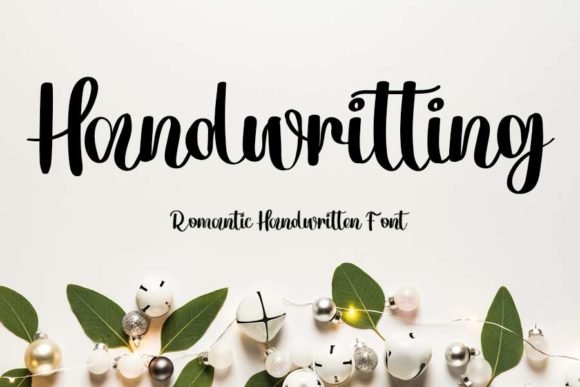
Discover the Timeless Charm of Handwritting Font
As a designer, you’ve probably experienced that moment when a single font can elevate an entire project from bland to grand. It’s like stumbling upon a hidden gem in a crowded market – you can’t help but feel a rush of excitement and inspiration. For me, that moment came when I discovered the Handwritting Font, a chic and round lettered handwritten font that has become an essential part of my design toolkit.
The Handwritting Font is more than just a font – it’s a way to add a touch of personality and whimsy to your designs. Its natural and unique style makes it incredibly versatile, fitting perfectly into a wide range of projects, from elegant wedding invitations to playful children’s book covers. As a designer, you’ll appreciate the value of this font in bringing your creative vision to life.
Key Features of Handwriting Font
- Unique Characteristics: This font features a natural, handwritten feel with subtle imperfections, adding a touch of personality to digital content.
- Weight and Style Options: The font comes in multiple weights (Light, Regular, Bold) and styles (Italic, Oblique), providing designers with a range of creative possibilities.
Handwriting Font Review
Overall, I’m quite impressed with the Handwriting Font. It’s a great addition to any designer’s toolkit, especially for projects that require a personal touch. ✨
- The font’s unique character set and stylistic alternates make it perfect for adding flair to headings and titles.
- The handwriting feel is well-captured, making it a great choice for projects that require a more organic look.
- The font is highly legible, even at smaller font sizes, which is a big plus in my book.
However, there are a few limitations that I’d like to mention. ⚠️
- The font may not be the best choice for body text, as it can be a bit too ornate for large blocks of text.
- The font’s ligatures can be a bit inconsistent, which may cause issues with text alignment.
Overall, I’d say that the Handwriting Font is a solid choice for designers looking to add a personal touch to their projects. While it may not be perfect, its unique character set and high legibility make it a great addition to any font library.
Tips for Getting the Most Out of Handwriting Font
Here are some common use cases for handwriting font:
- Invitations and event graphics.
- Personalized gifts and cards.
- Brand identity and marketing materials.
- Education and training materials.